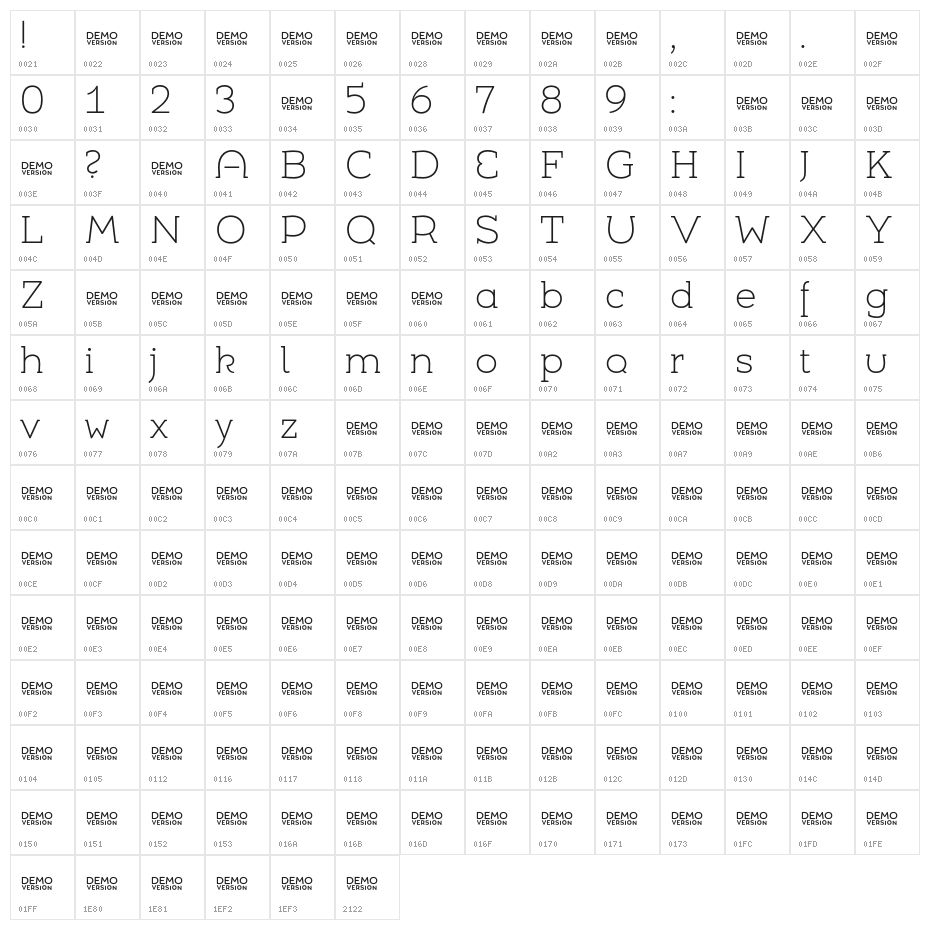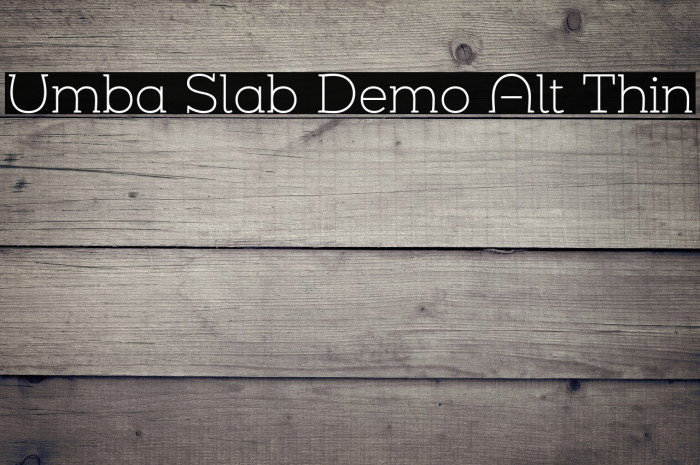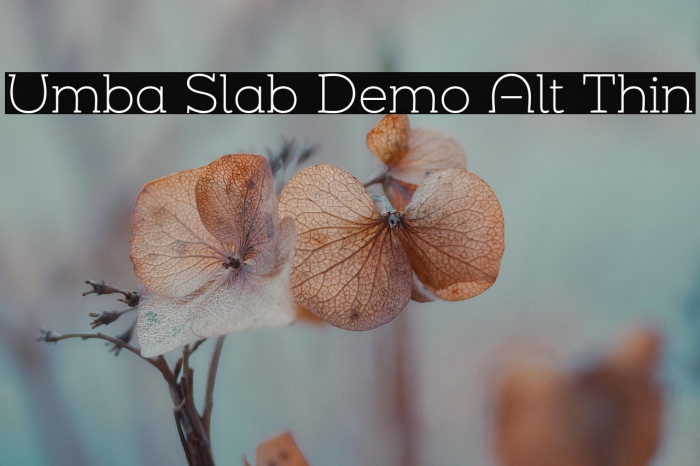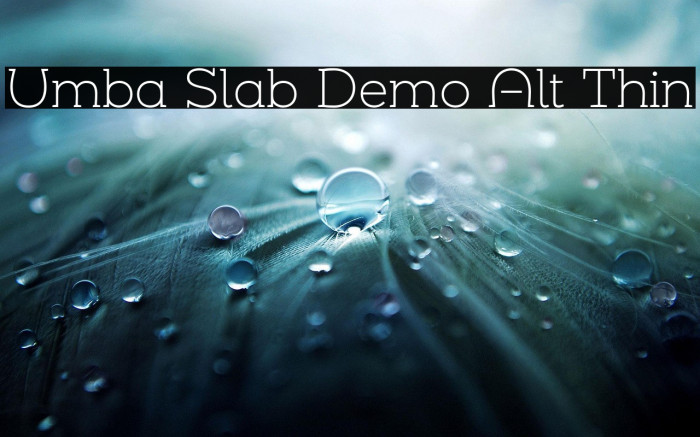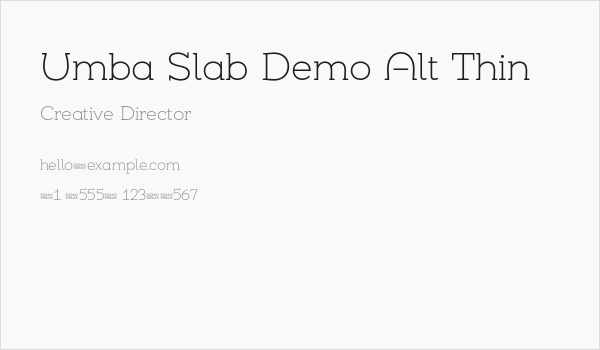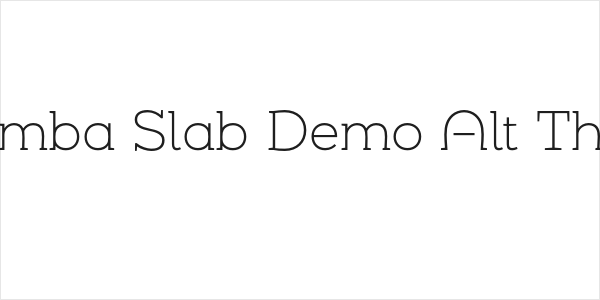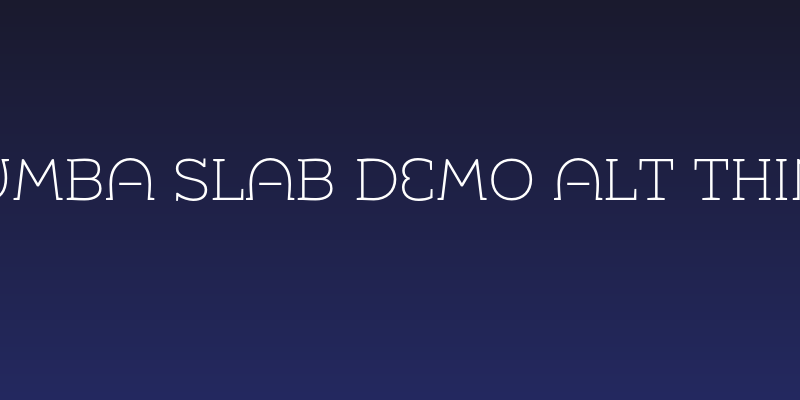
Umba Slab Demo Alt Thin Font
Umba Slab Demo Alt Thin Description
This font features a clean and modern aesthetic with a geometric structure. The characters are thin and elongated, giving a sleek and sophisticated appearance. The uppercase letters are uniform in height, while the lowercase letters maintain a consistent baseline with slight variations in ascenders and descenders. The numerals are proportionate and align well with the overall style. Special characters are included, maintaining the same thin stroke and geometric form. The font's thin weight and minimal contrast between strokes make it ideal for creating a contemporary and elegant look.
Proposed ProjectsIdeal for branding, editorial design, and minimalist web design projects.